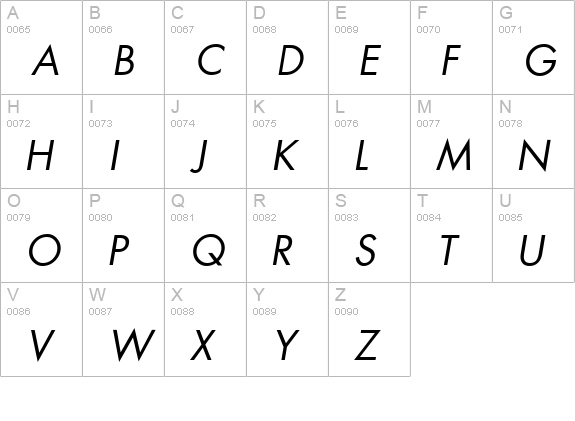
Futura ICG Book Oblique Font Details
Futura ICG Book Oblique is a comfortable, highly readable, italic variant in the Futura typeface family \xE2\x80\x94 well suited to long-form body text, articles, and editorial content.
Futura ICG Book Oblique is a sleek and modern typeface that exudes sophistication and elegance. Its slanted design adds a touch of dynamic energy to any project, making it perfect for conveying a sense of movement and forward-thinking. The clean lines and geometric shapes of Futura ICG Book Oblique give it a timeless appeal that is versatile and easy to read. This font is ideal for a wide range of design projects, from branding and advertising to editorial and web design. Whether used for headlines, body text, or captions, Futura ICG Book Oblique adds a touch of sophistication and style to any layout. The best part is that Futura ICG Book Oblique is freely available to download at FontsMarket.com. This means that you can easily access this high-quality font for your projects without any cost. Don't miss out on the opportunity to elevate your designs with the timeless elegance of Futura ICG Book Oblique.